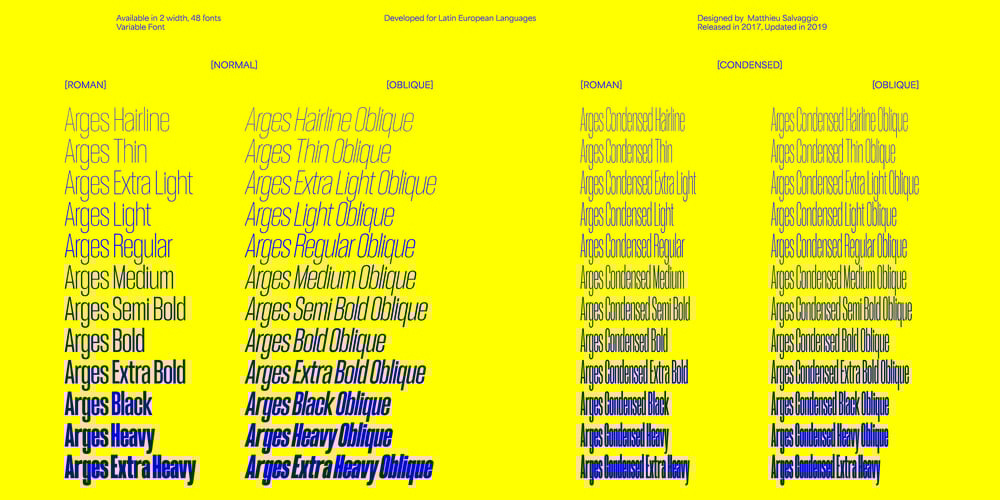
Arges VF Font Family was designed by Matthieu Salvaggio and published by Blaze Type. Arges VF contains 1 styles and family package options. A flexible heavy font tool, ideal for headlines and display.Arges was Inspired by the famous Cyclope who helped forge Zeus’ thunder weapon. Completely rethought and fully redesigned during 2018–2019, Arges became a super family of 11 weights+matching obliques & two styles (Normal/Condensed). Originally thought to be a heavy font-tool meant for display and headlines it was completely revamped into a typeface family containing several useful weights for various text sizes and layouts.